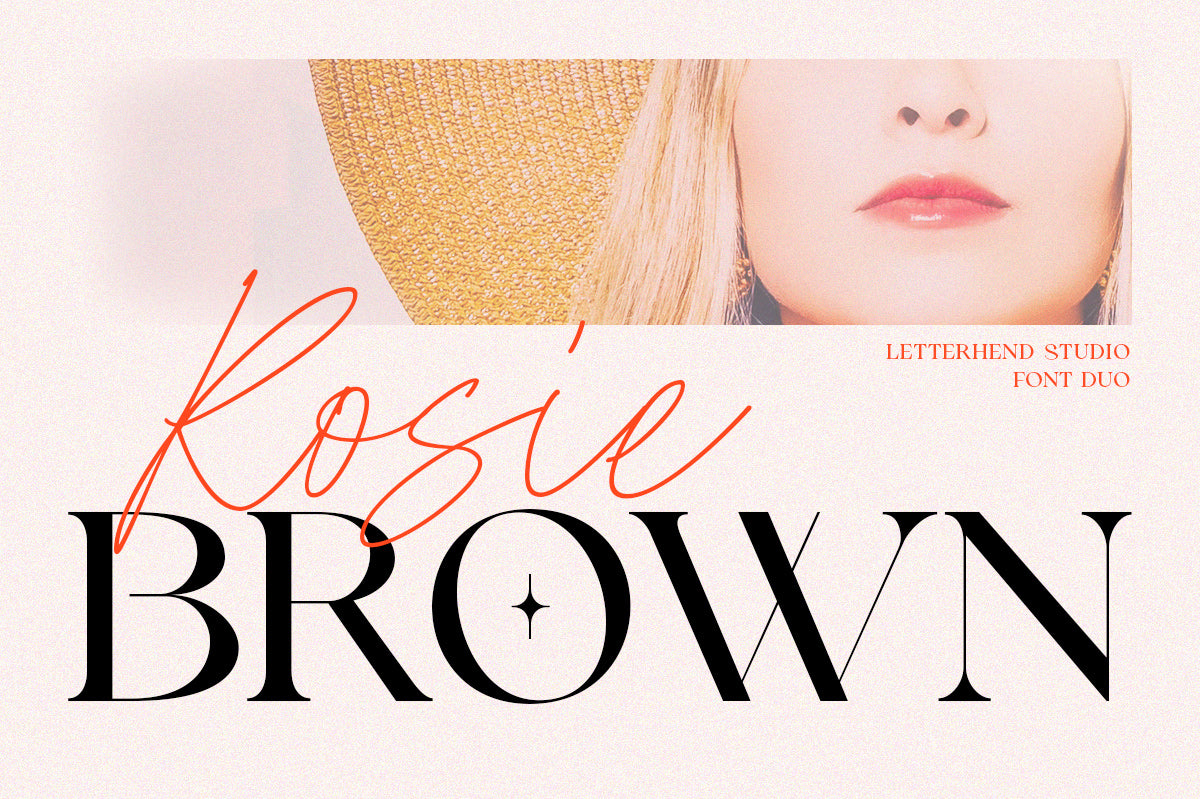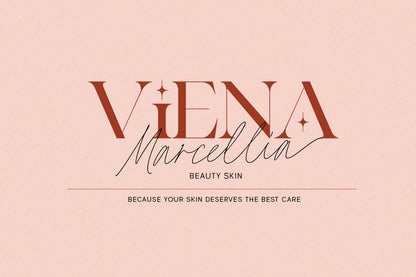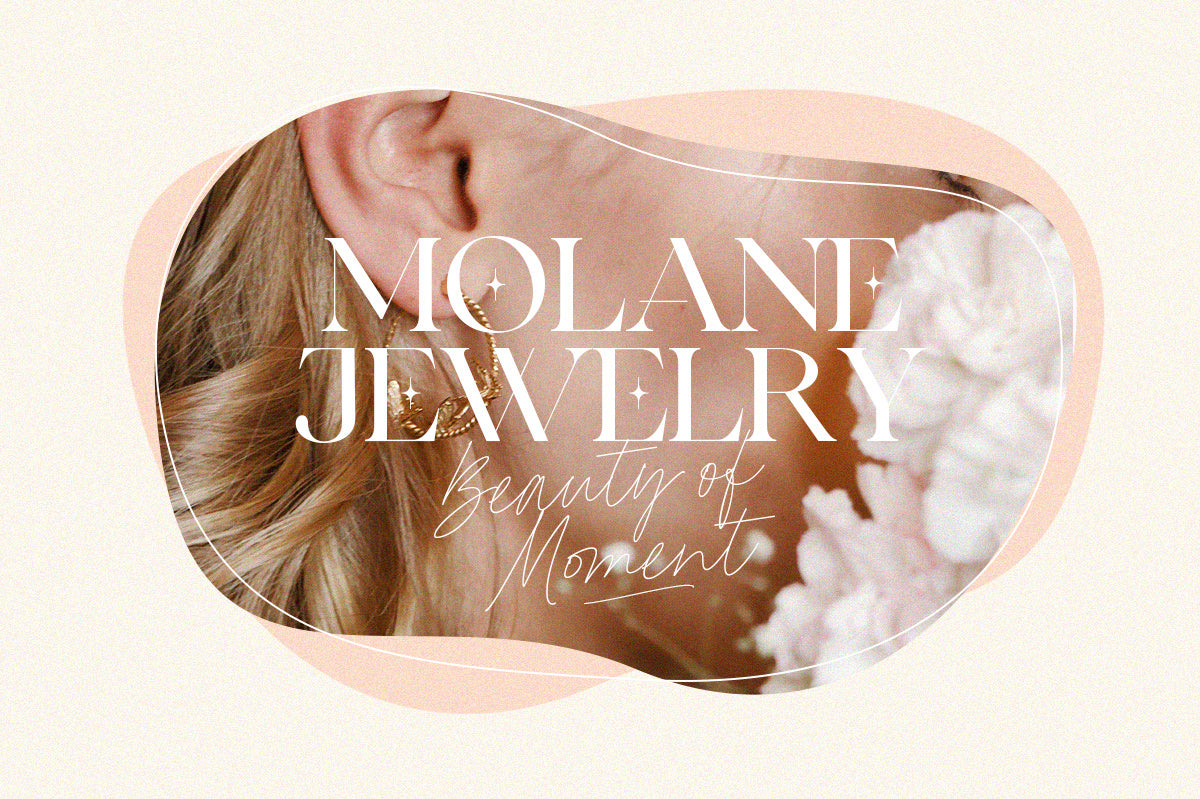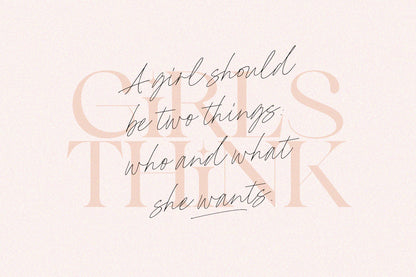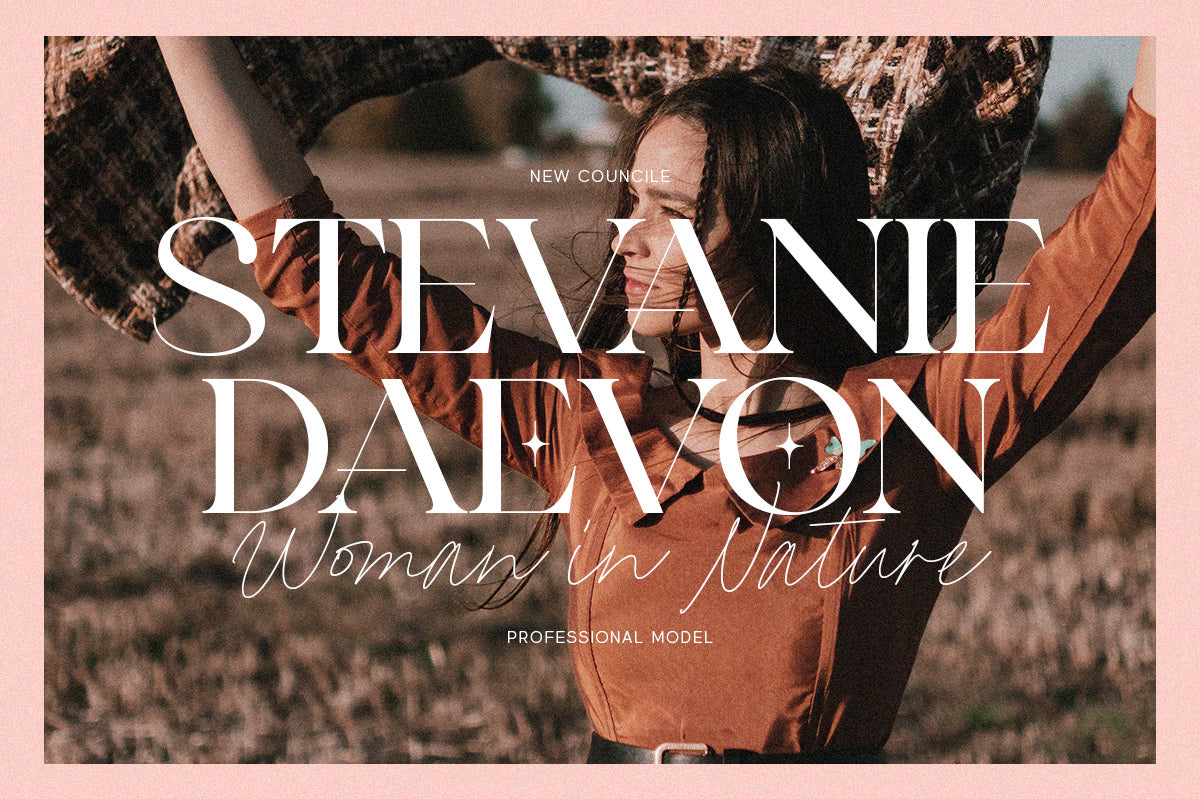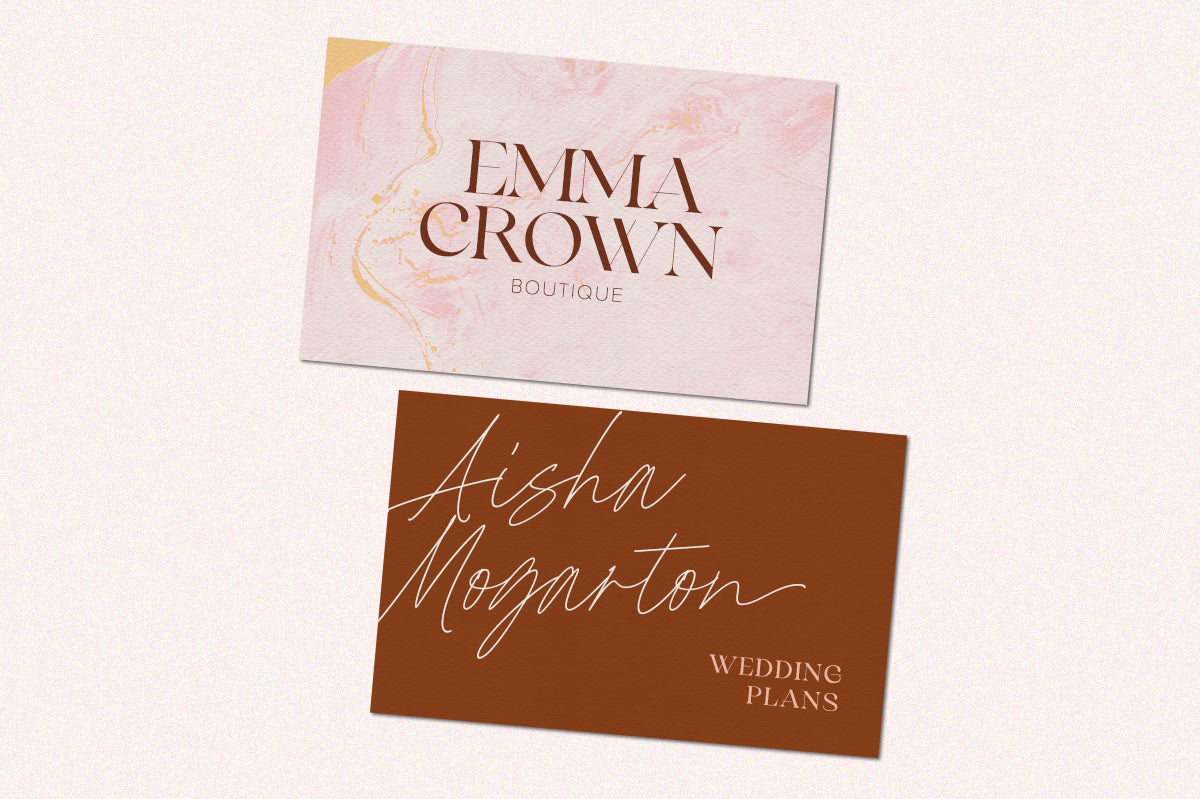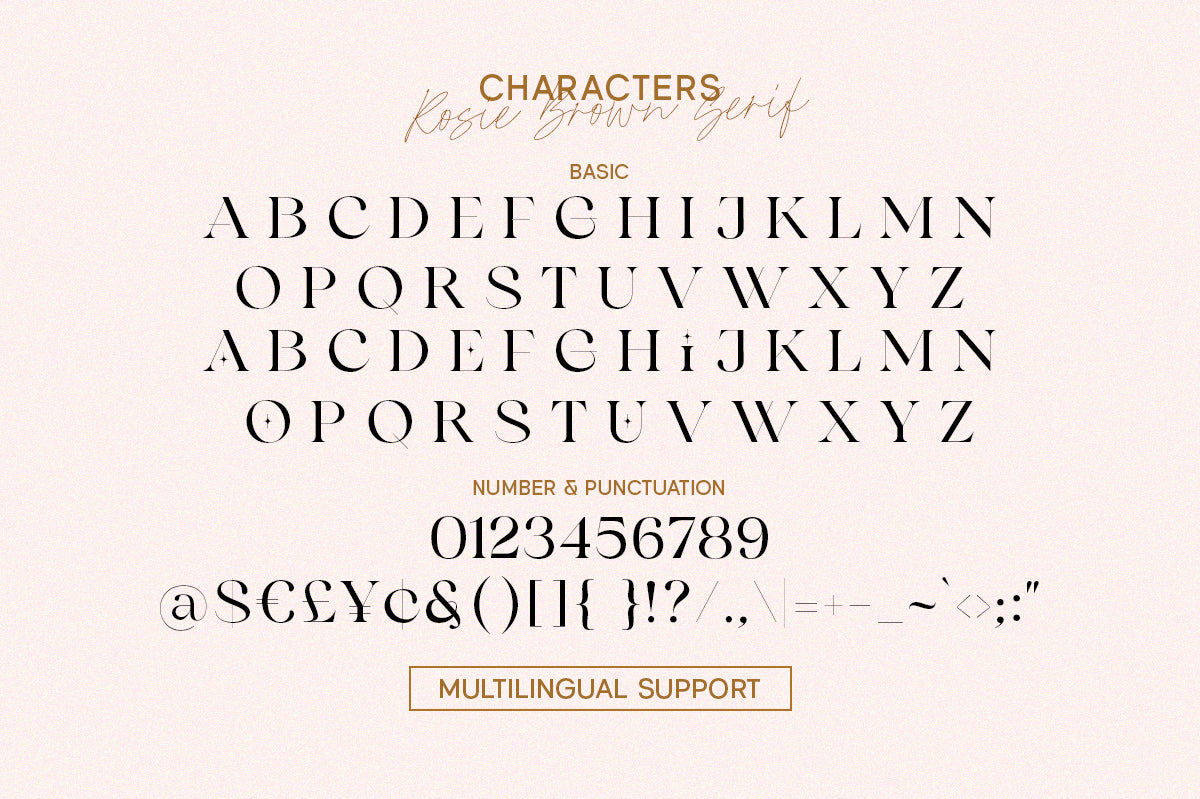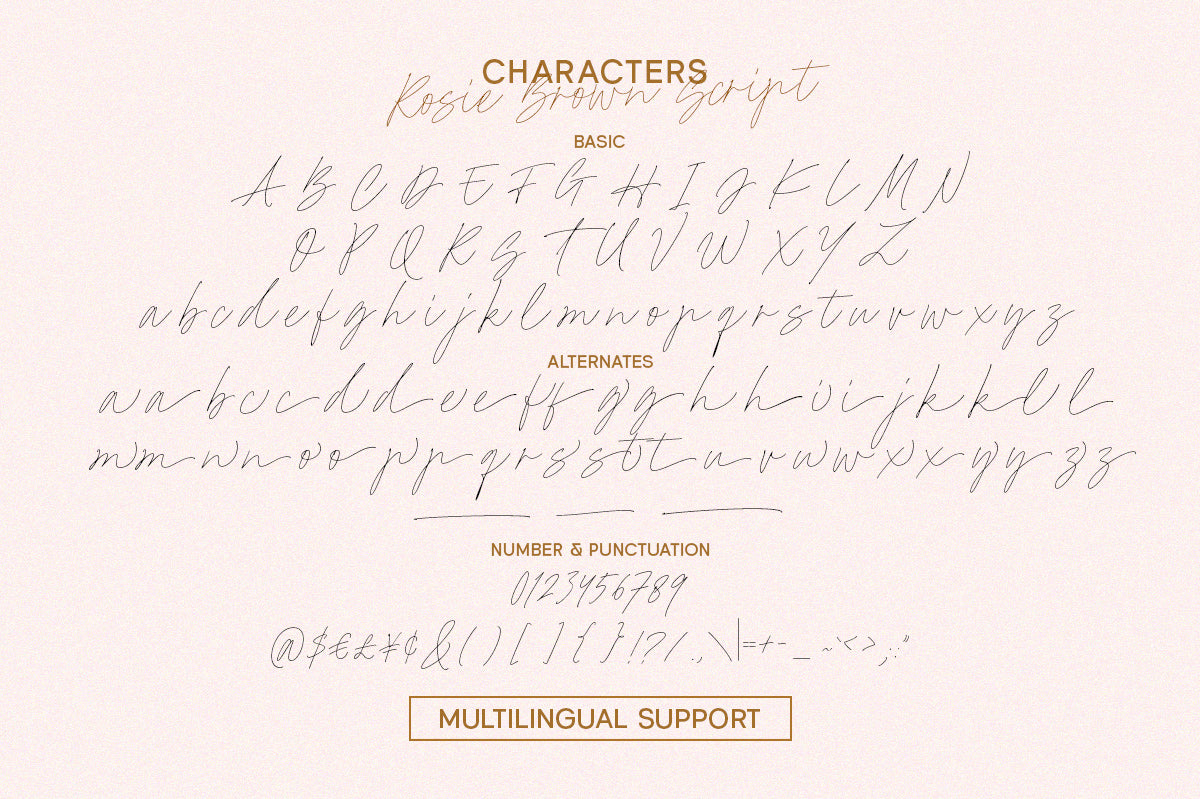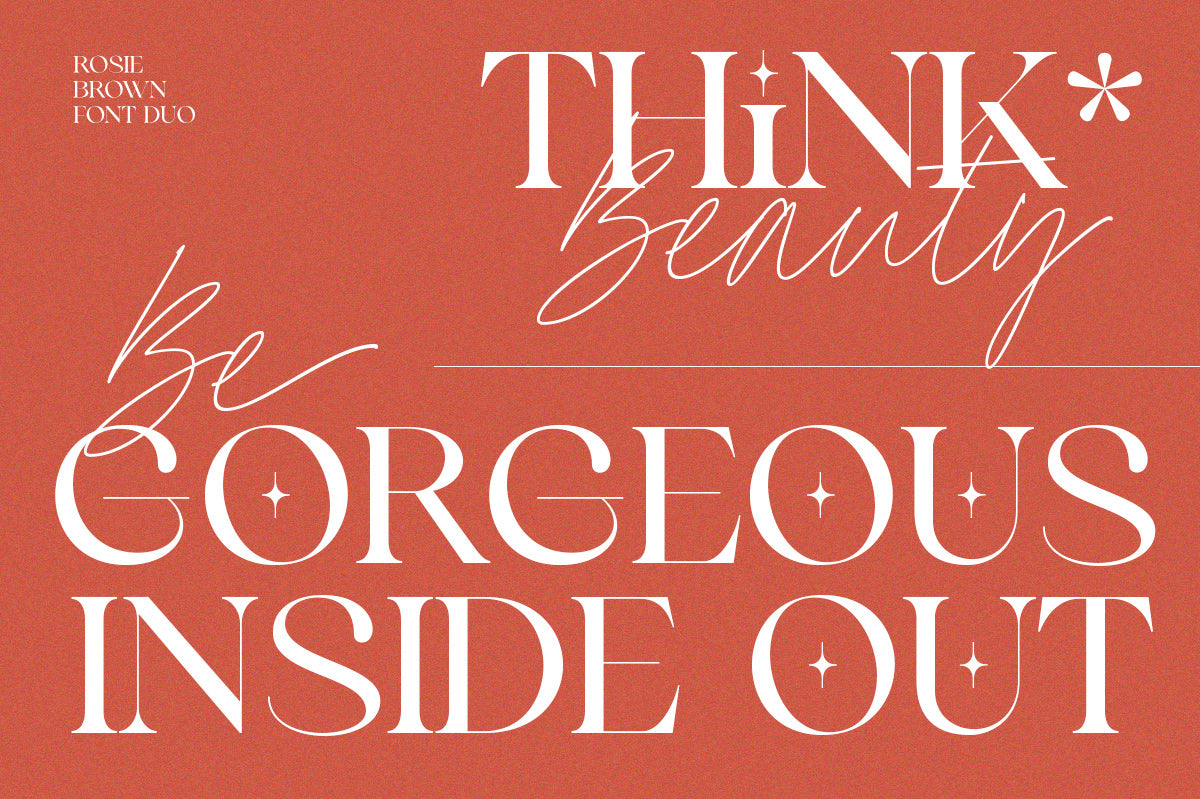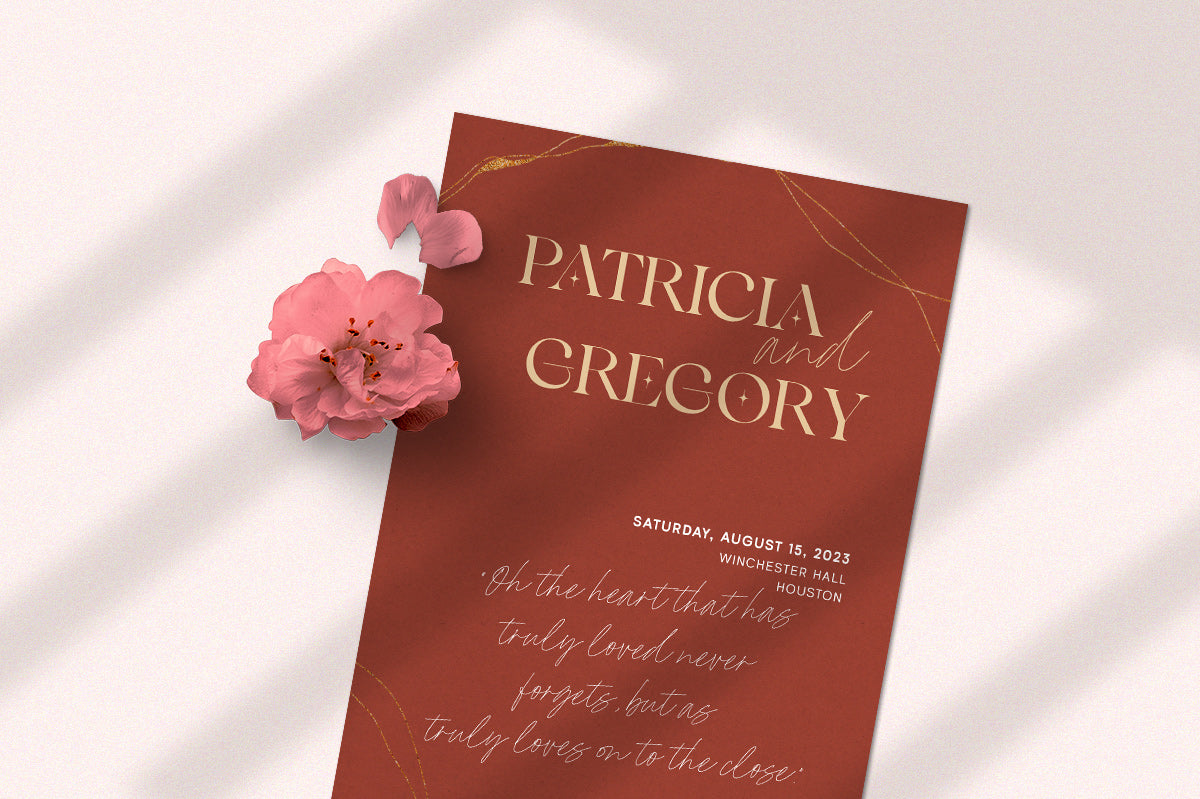
Rosie Brown is a font pair that brings a modern and casual feel at the same time. The high-contrast serif, combined with the natural handwritten script, is the perfect match for those who need a typeface for headlines, logotypes, apparel, invitations, branding, packaging, advertising, etc.
Features:
2 fonts (serif and script font)
uppercase & lowercase
numbers and punctuation
multilingual
alternates & ligatures